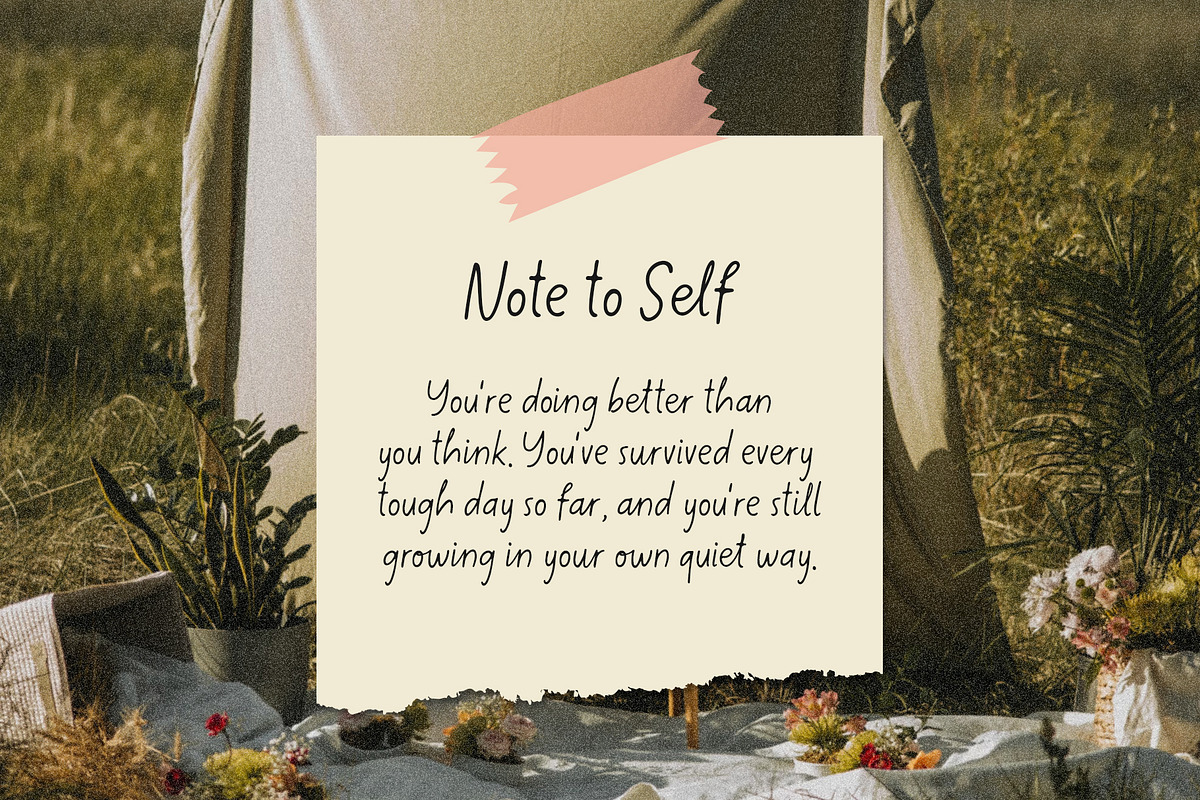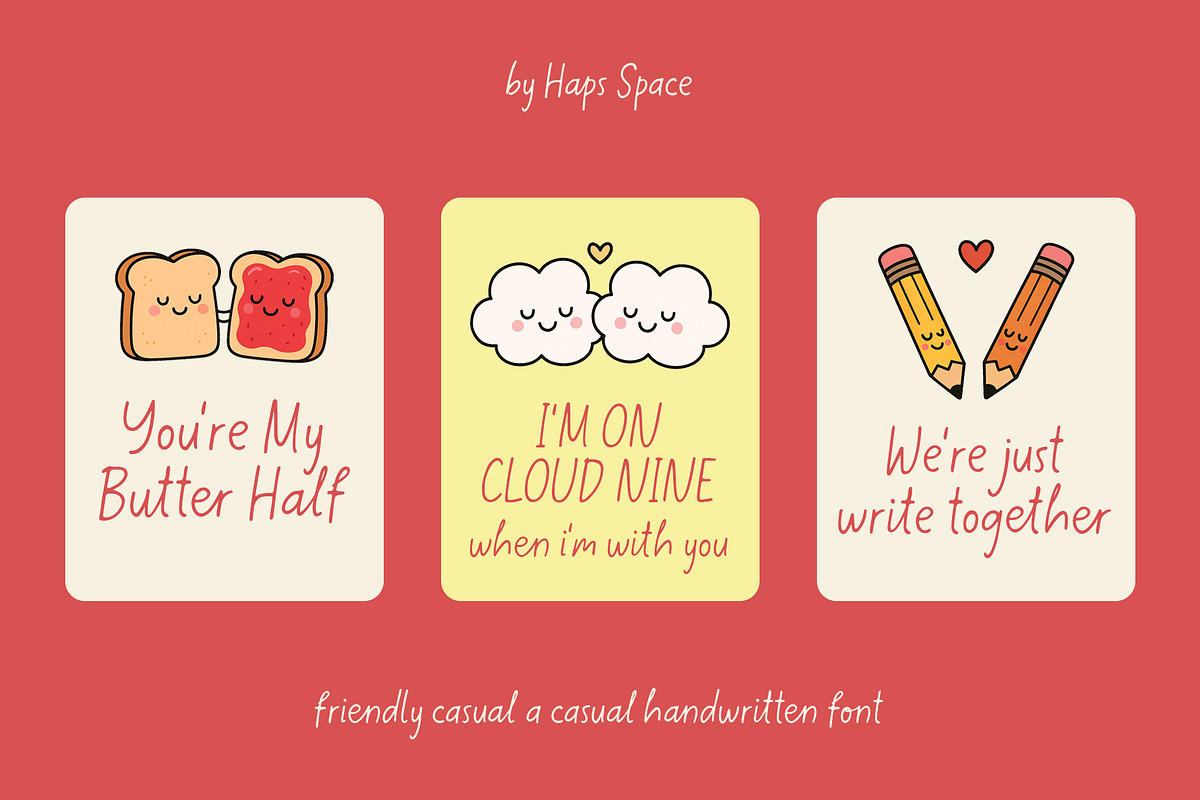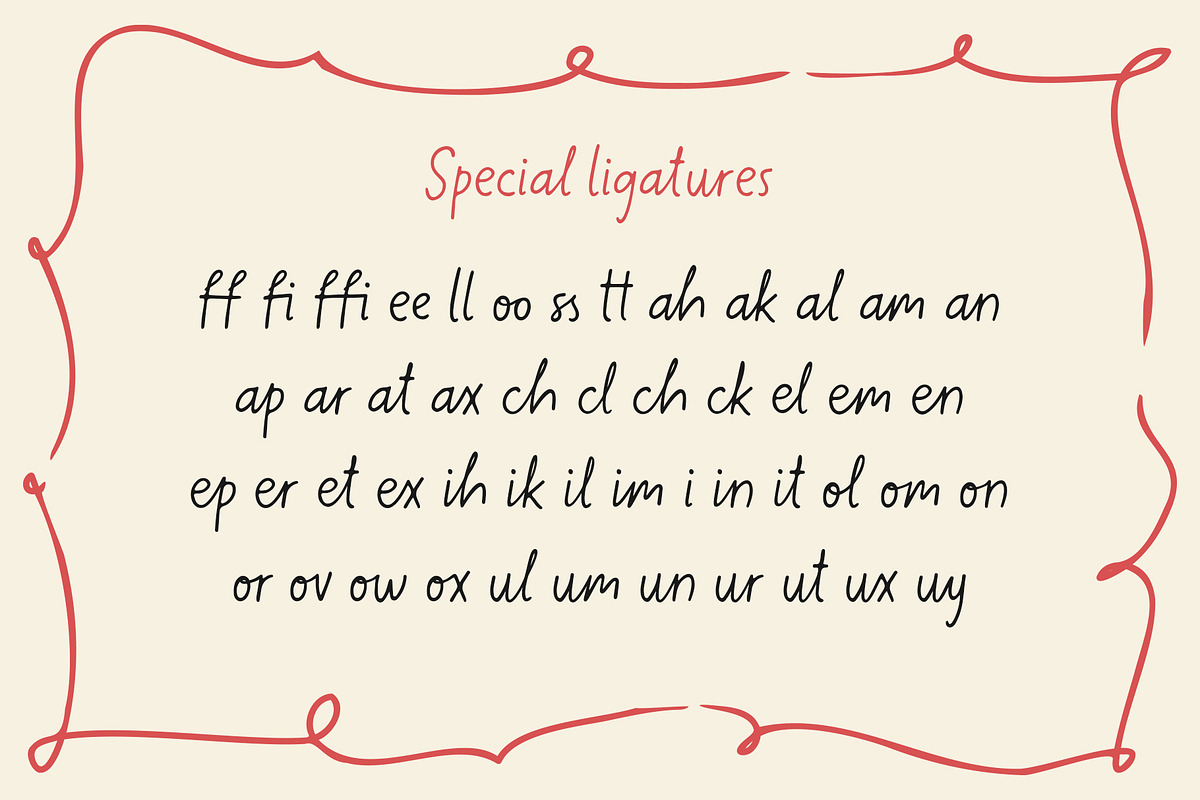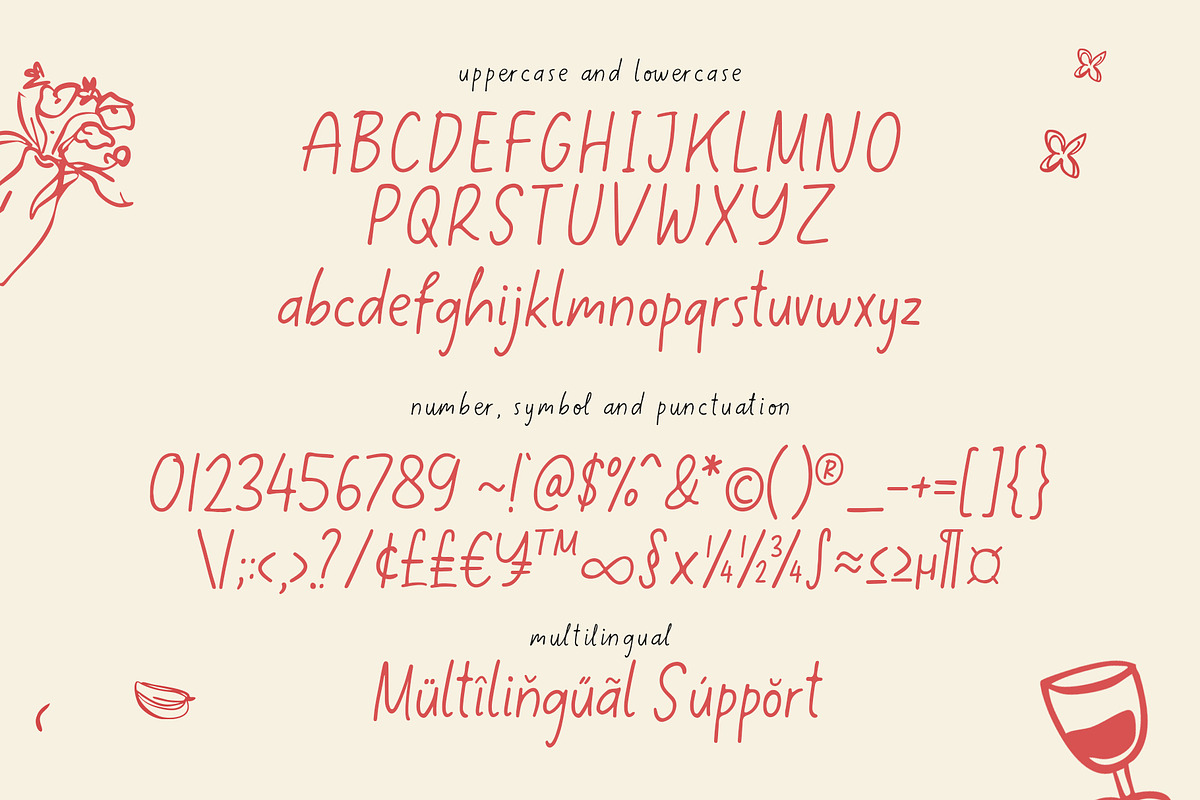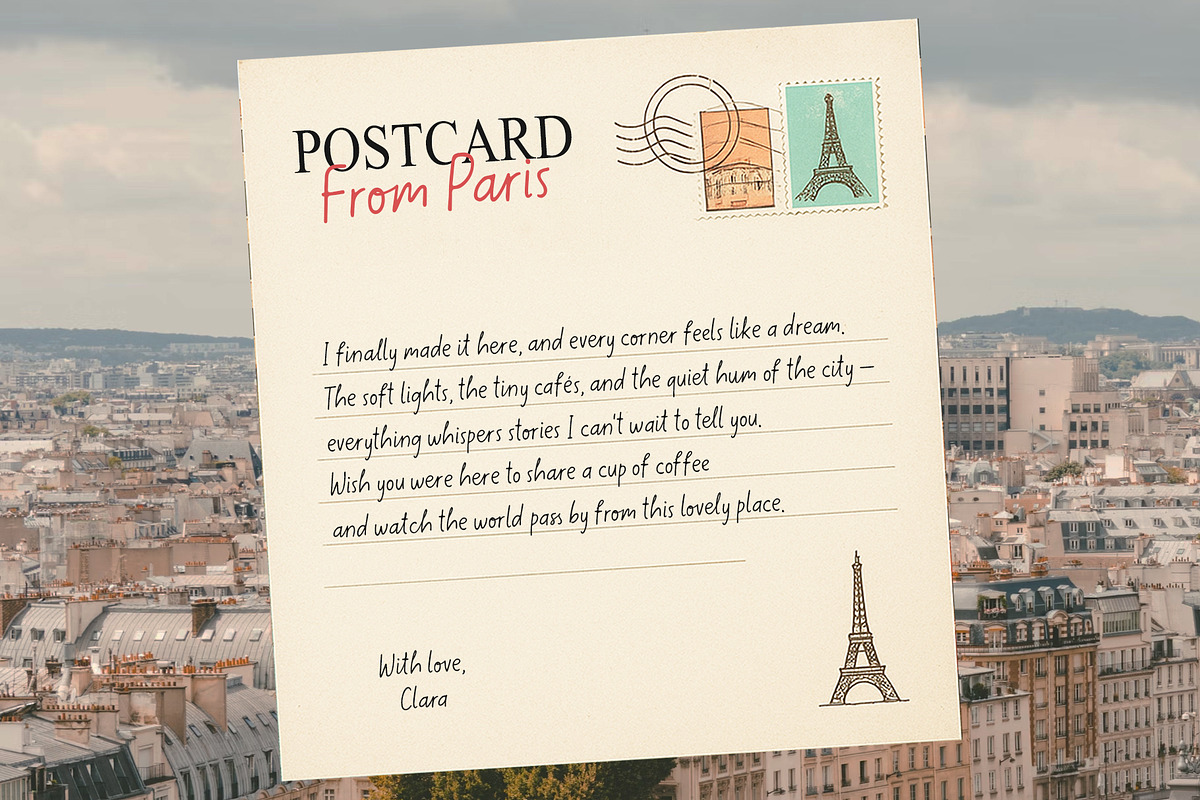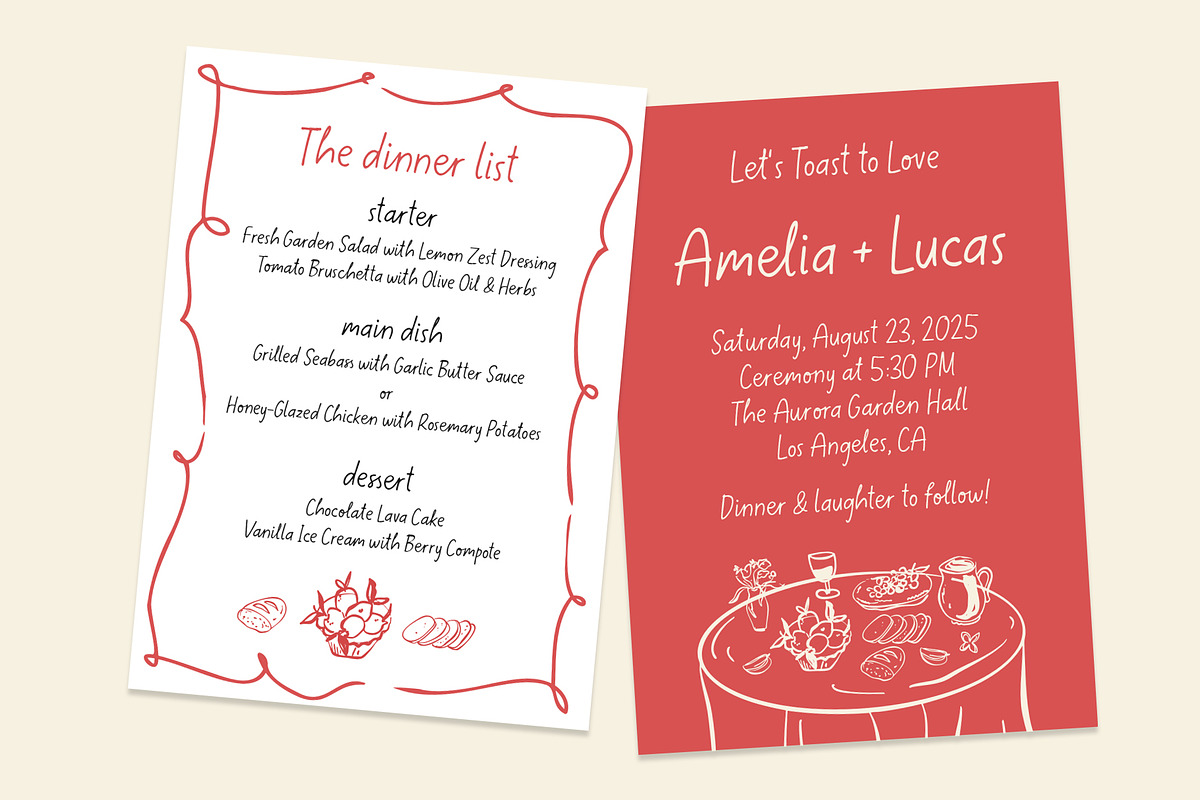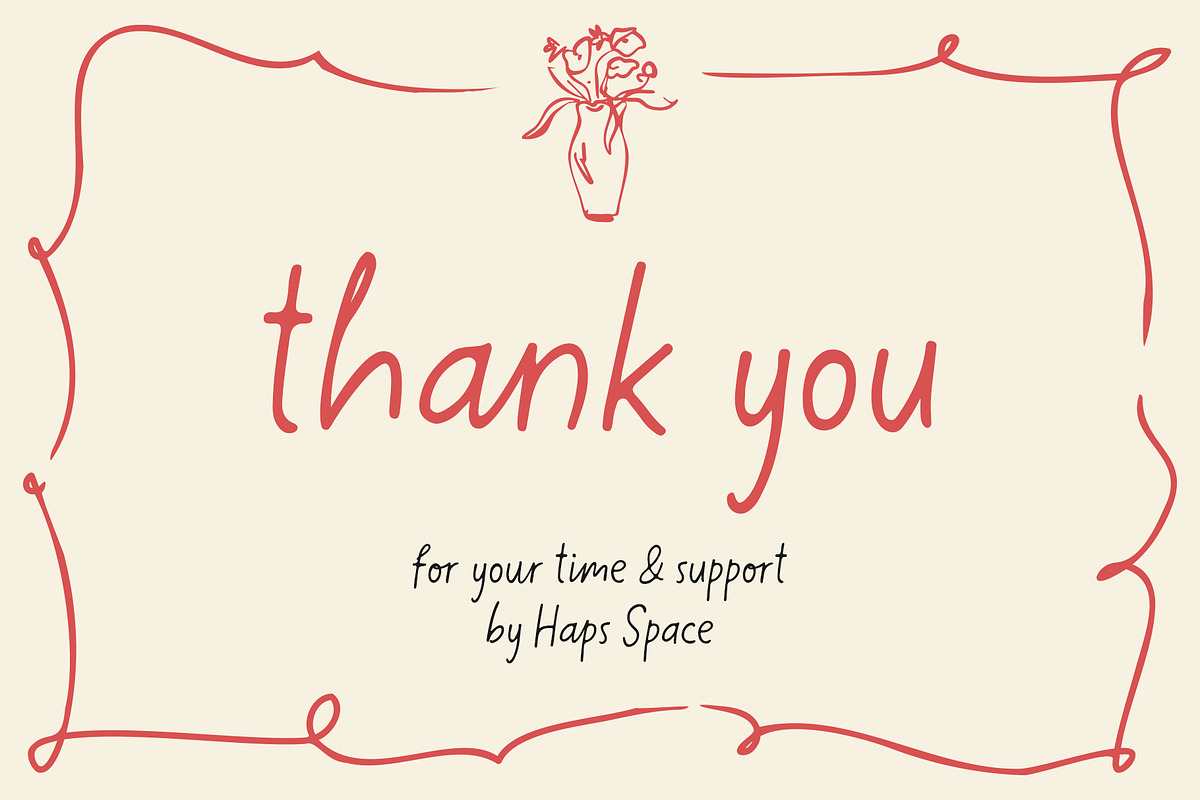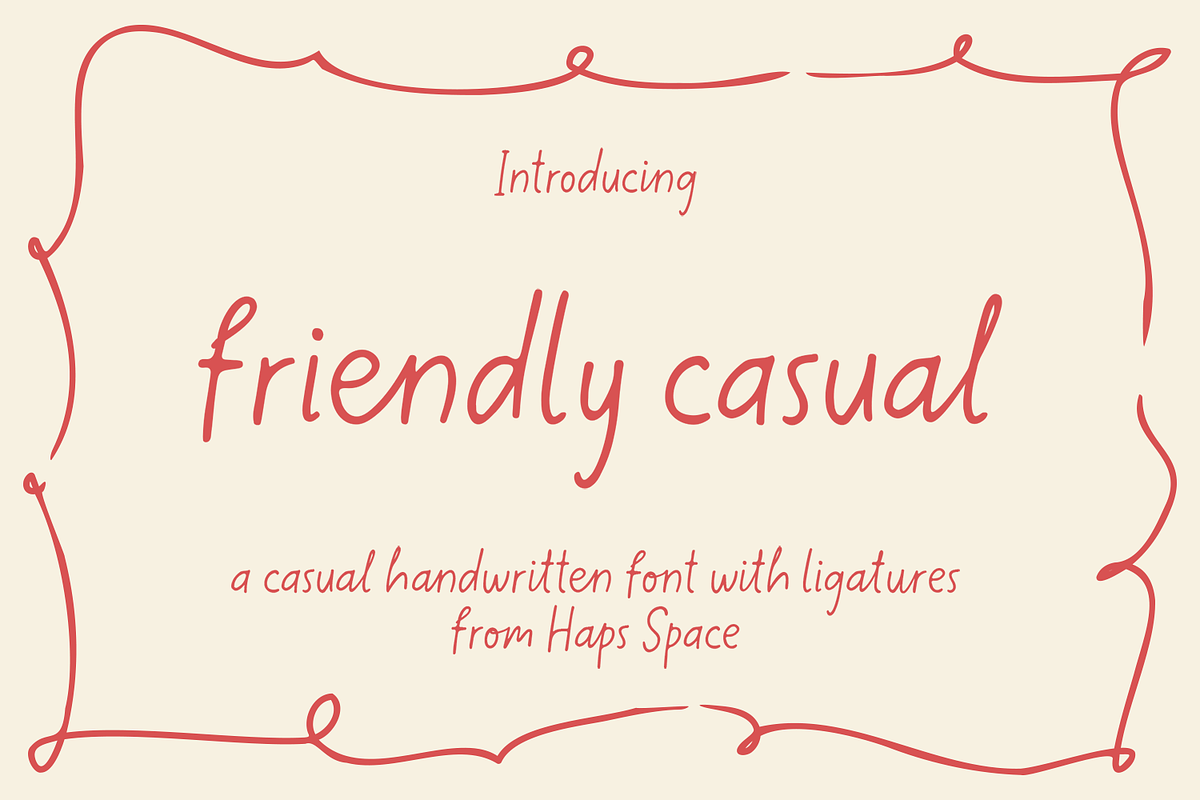
Friendly Casual Handwritten
Friendly Casual is a relaxed handwritten font designed to bring warmth and authenticity to your projects. Its smooth curves, gentle flow, and natural ligatures make it perfect for personal notes, quotes, invitations, logos, and social media posts. This font captures the charm of real handwriting — friendly, approachable, and full of personality.
Whether you’re working on branding, packaging, or greeting cards, Friendly Casual adds a cozy and human touch to your design. Simple yet expressive, it’s ideal for anyone who wants their words to feel personal and heartfelt.
- Uppercase & lowercase, Ligatures
- Punctuation & symbols